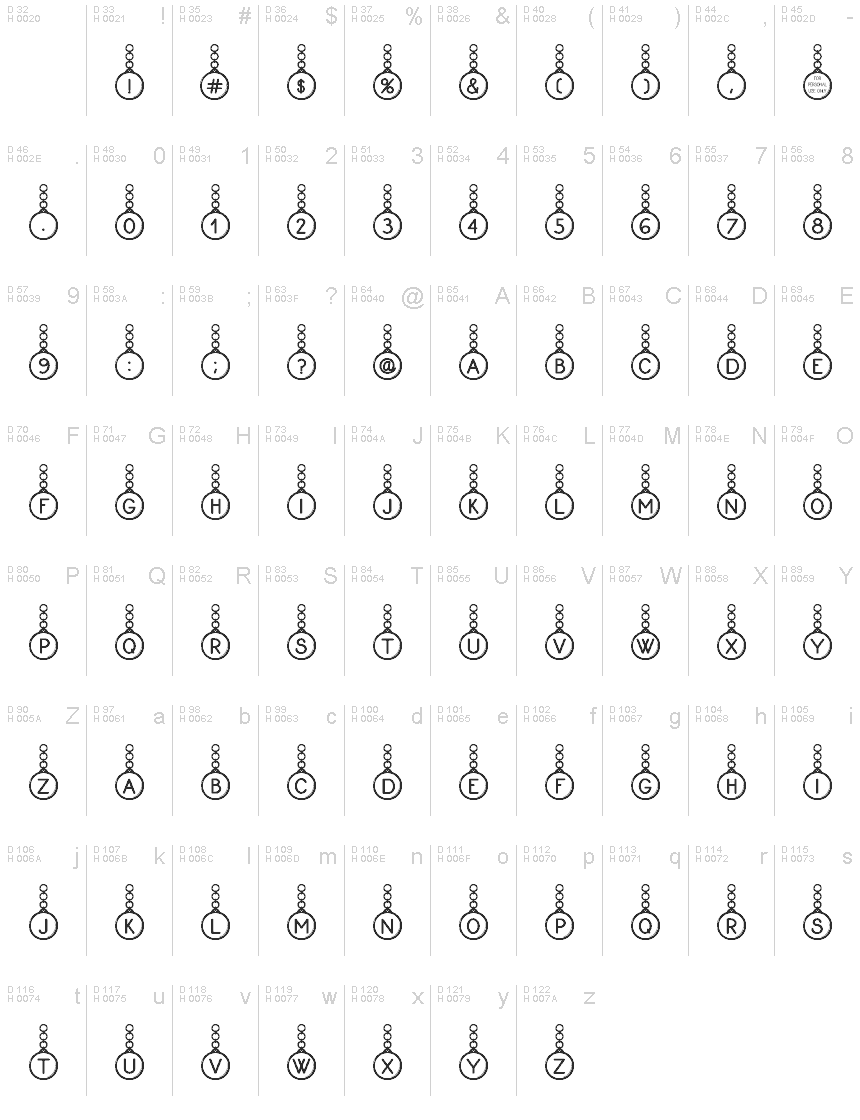
Proxanys
Proxanys is a captivating display font, crafted by the talented designer Eva Barabasne Olasz. This decorative typeface exudes a striking visual presence, with its bold, geometric letterforms and distinctive looped connections. The font's unique aesthetic lends itself seamlessly to a wide range of design applications, from eye-catching headlines and impactful logos to dynamic branding and editorial layouts.
Proxanys' versatility and visual impact make it an invaluable asset for designers seeking to create memorable and visually engaging compositions.